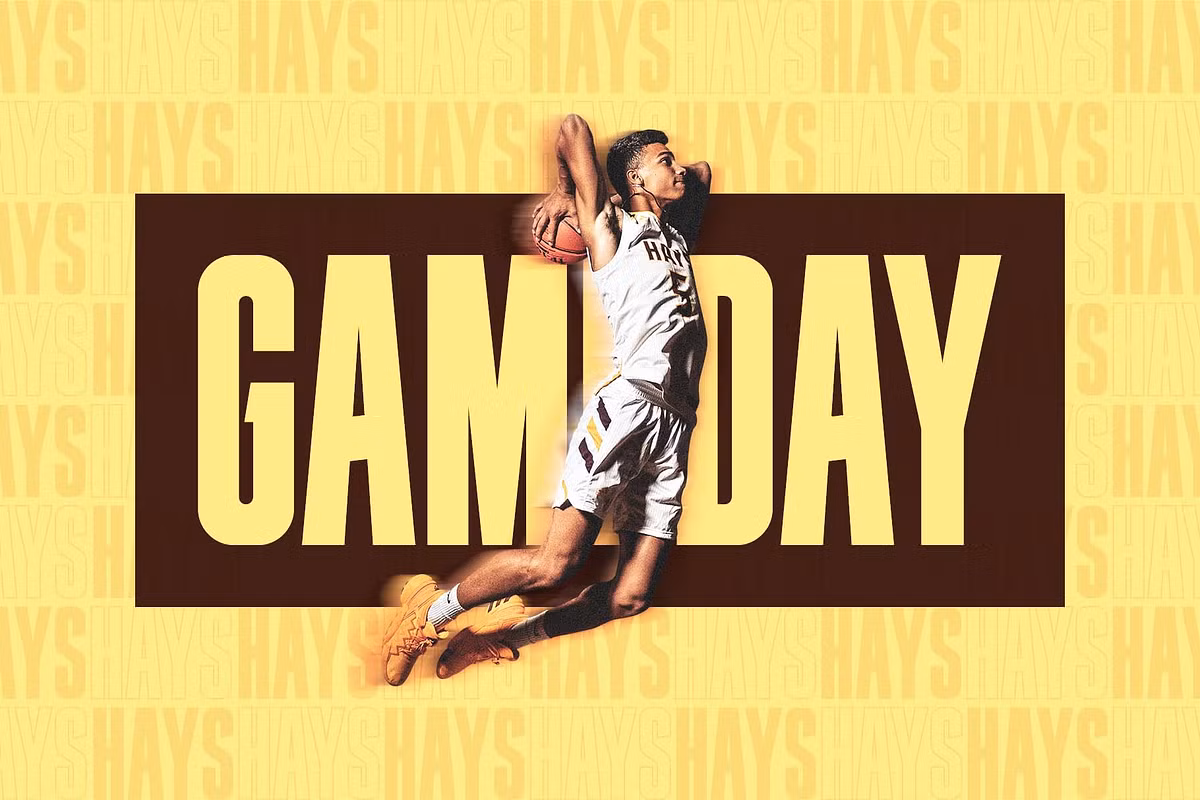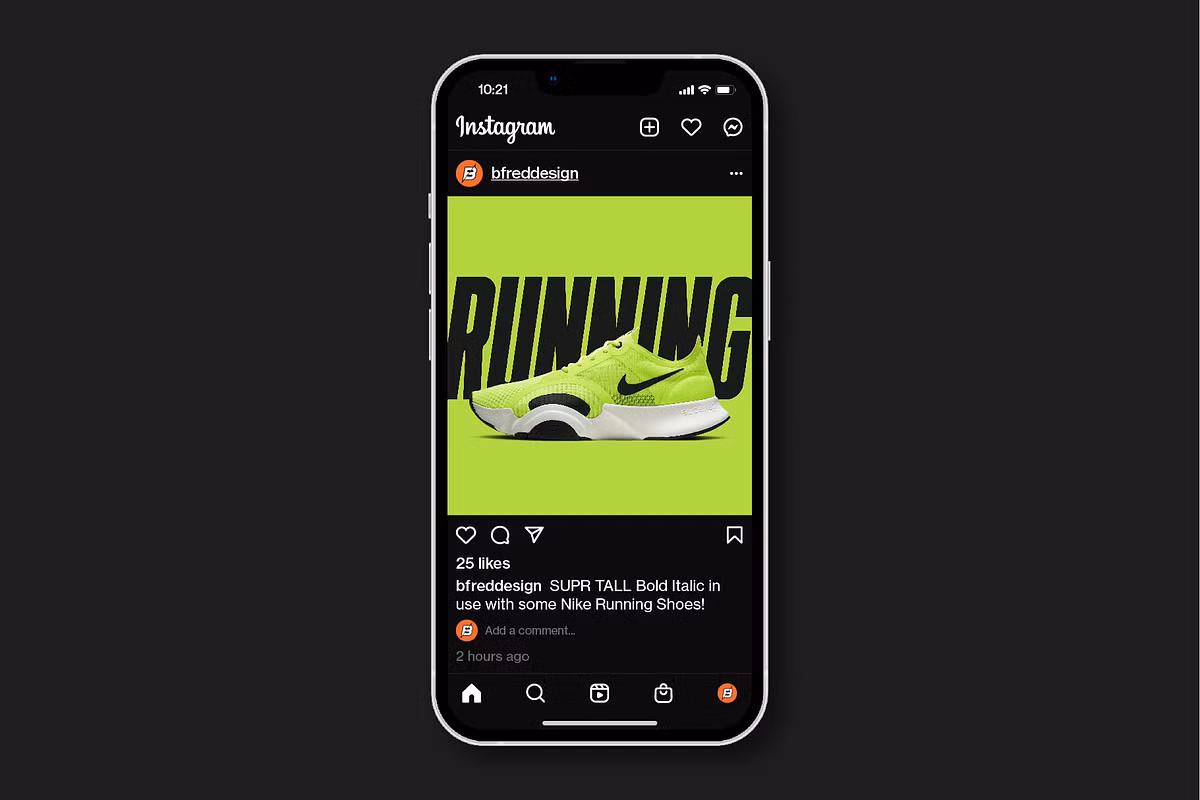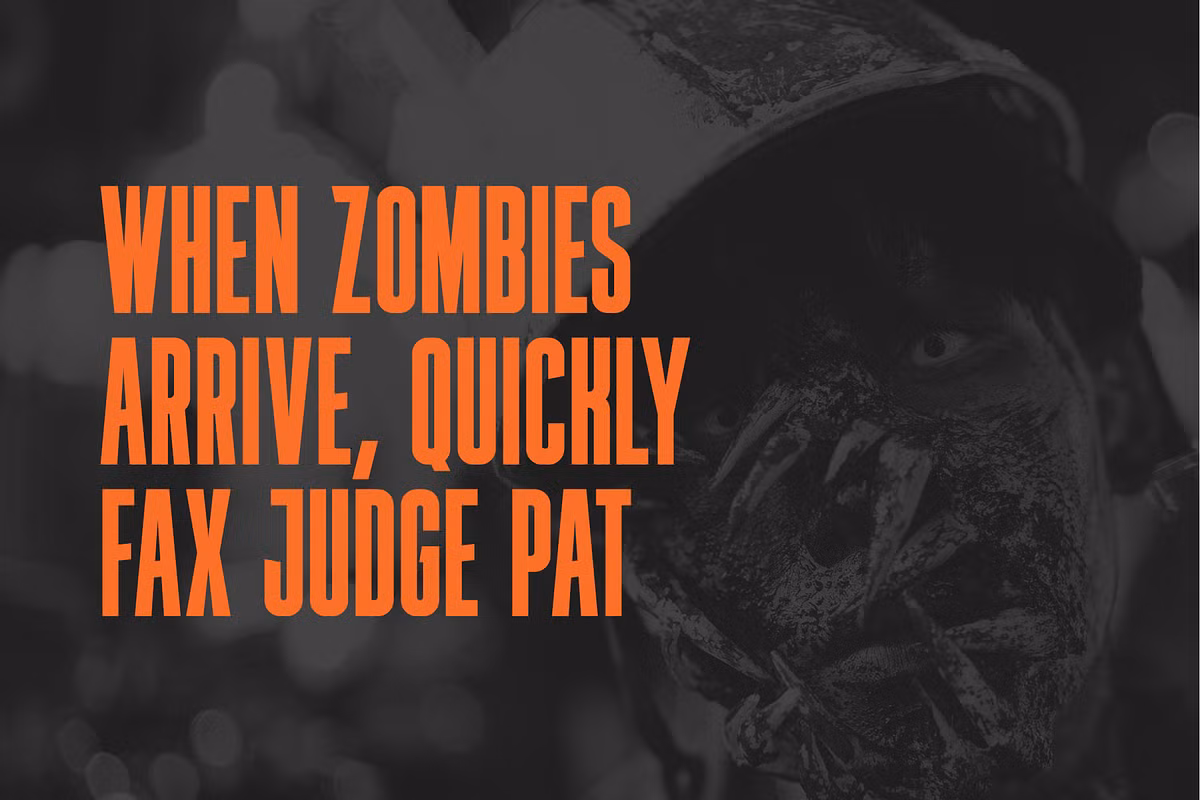
Introducing SUPR TALL
SUPR TALL is a really tall and bold font that is great for making a big impact in your designs. It’s perfect for when you need to make a statement, but don’t have a lot of space to work with. This font is awesome for things like sports graphics, posters, and headlines because it’s easy to read and really grabs your attention. Whether you’re trying to get people excited about a big game or just want to make your message stand out, SUPR TALL is a great choice. It’s like a superpower for your text, making it bigger and bolder without taking up too much space. So if you want to make a big impression, try using SUPR TALL – it’s sure to deliver!
Design Style of SUPR TALL
The SUPR TALL design is really something special – it’s super slim, but also very powerful looking. This font is perfect for making a big statement, and its modern style is both sleek and energetic. Because the letters are all squished together, you can get really creative with how you lay out your text, without it taking up too much space. Each letter has its own unique shape and size, which makes them all stand out in a good way, so it’s great for situations where you need to grab people’s attention and make sure they can read what you’re saying.
The thing that really makes SUPR TALL stand out is how bold it is. This makes it really good at getting people’s attention, especially when you’re trying to make a big impact with headlines or important info. It’s great for things like ads and promotional stuff. The lines are really sharp and the shapes are geometric, which gives it a pretty modern feel. This means you can use it in lots of different situations, like on computers or in printed materials, and it will always look good.
Character Sets and Features
The font SUPR TALL is really versatile and has a lot of different characters, which makes it great for designers who want to work on projects that involve many languages. It’s got all the usual letters, both big and small, as well as punctuation marks and special characters, so you can use it to convey all sorts of messages in a way that looks consistent and put together. This means you can use it for lots of different things, like titles, body text, and more, and it will always look good.
The SUPR TALL font is really good for making headlines and titles that grab your attention fast. Because it’s extra-condensed, you can fit a lot of text into a small space without it being hard to read. This makes it perfect for creating eye-catching designs that stand out in busy areas.
The font is really tall and it looks great because the space between the letters is just right. This makes it easy to read, whether it’s big or small, and that’s why it’s a good choice for lots of different uses.
Use Cases for SUPR TALL
The thing about SUPR TALL is that it’s really versatile, which means it can be used in lots of different situations. Let’s take a look at some examples of where this font can really stand out.
- Sports Graphics: SUPR TALL is perfect for team logos, jerseys, and promotional materials, where a bold and dynamic font is essential to capture the excitement of athletic events.
- Posters: We can make posters that really stand out, whether it’s for a concert, an event, or to advertise something. SUPR TALL can help you create posters that grab people’s attention and get your message across.
- Editorial Titles: In magazines and online publications, headlines need to be impactful. SUPR TALL’s bold and condensed design ensures that titles stand out on the page.
- Advertising: For billboards, social media graphics, and other advertising materials, SUPR TALL provides the necessary visual weight to attract viewers and communicate messages clearly.
Pairing Suggestions with SUPR TALL
When you want to get the most out of SUPR TALL, try matching it with other fonts that make it stand out even more. You can pick fonts that are really different from SUPR TALL to create a nice balance. Here are a few ideas for fonts that go well with SUPR TALL:
- Sans-serif Fonts: Pairing SUPR TALL with a lighter sans-serif typeface can create a beautiful contrast. Fonts like Helvetica or Futura work well for body text, allowing SUPR TALL to shine in titles and headlines.
- Serif Fonts: For a classic and timeless look, try pairing SUPR TALL with a traditional serif font, such as Georgia or Baskerville – this can really add a touch of sophistication to your design.
- Script Fonts: To add a touch of elegance, combining SUPR TALL with a handwritten or script font can create a dynamic visual hierarchy, perfect for invitations or creative projects.
SUPR TALL is an extraordinary addition to the typography landscape, offering designers a powerful tool for creating impactful visuals. With its extra-condensed design, comprehensive character set, and versatile application potential, this bold display font is ideal for numerous projects, from sports graphics to editorial titles. By pairing it with complementary fonts and understanding its licensing, you can fully leverage the capabilities of SUPR TALL to enhance your designs. Make your next project unforgettable with the striking presence of SUPR TALL.